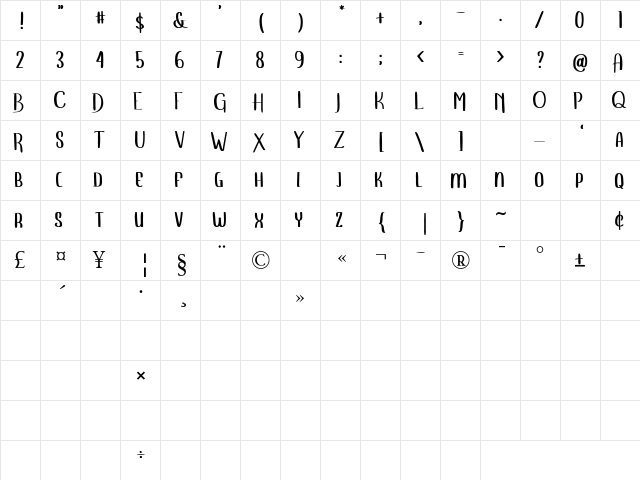
Hynmand Regular
Design Context for Hynmand Typeface
Hynmand offers clean, dependable letterforms without strong stylistic allegiance, making it a practical choice for designers who need flexibility.